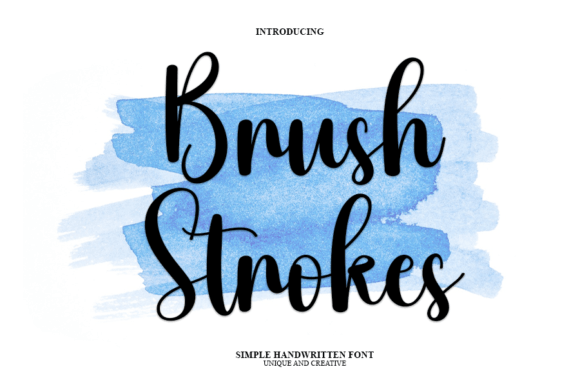
The Brush Strokes Font: A Modern Handwritten Gem
I still remember the design project that led me to discover the Brush Strokes font. I was working on a greeting card for a friend’s birthday, and I wanted to add a personal touch with a handwritten font. But, as I scrolled through my font library, I couldn’t find anything that felt quite right – until I stumbled upon Brush Strokes. Its unique blend of modernity and playfulness instantly captured my attention, and I knew I had found the perfect fit.
So, what makes Brush Strokes so special? Let’s dive into the details!
• ✨ Unique and modern design: Brush Strokes has a fresh, contemporary feel that’s perfect for a wide range of design projects.
• ✅ Highly versatile: Whether you’re creating digital designs, presentations, or crafting greeting cards, this font adapts effortlessly.
• 💫 Easy to read: Despite its handwritten nature, Brush Strokes is surprisingly legible, even at smaller font sizes.
While Brush Strokes is an excellent font, it’s not without its quirks. Here are a few things to keep in mind:
• 🤔 Limited use of uppercase letters: While the font does include uppercase letters, they might not be as stylized as the lowercase letters.
• ⚠️ Occasional kerning issues: As with any font, you might encounter some kerning issues, especially when using certain letter combinations.
The Designer Inspiration Behind Brush Strokes
Brush Strokes was designed with the intention of creating a modern, handwritten font that captures the essence of creativity and playfulness. The designer aimed to craft a font that’s both elegant and approachable, making it perfect for a wide range of design projects.
Q: What type of projects is Brush Strokes best suited for?
A: Brush Strokes is a versatile font that can be used for various projects, including digital designs, presentations, greeting cards, and crafts.
Q: Is Brush Strokes suitable for body text?
A: While Brush Strokes is legible, it’s best suited for headlines, titles, or short paragraphs. For longer body text, you may want to choose a more traditional font.